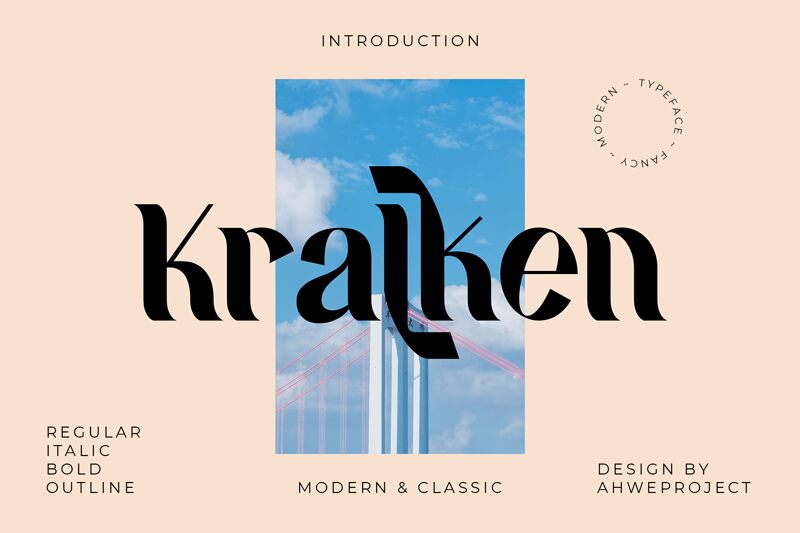
Kralken, the bold display font by Ahwe Project, is a perfect choice for projects that aim to make a statement. Its modern yet classic style creates a unique look that will capture any viewer's attention. Kralken's thick strokes and sharp edges give it an authoritative feel, making it ideal for branding and logos. Its versatility also makes it suitable for editorial designs such as magazine covers or headings. Kralken's bold weight paired with its modern style can also be applied to web design and packaging. With Kralken, your project will stand out from the rest with its distinct and memorable look.
Kralken